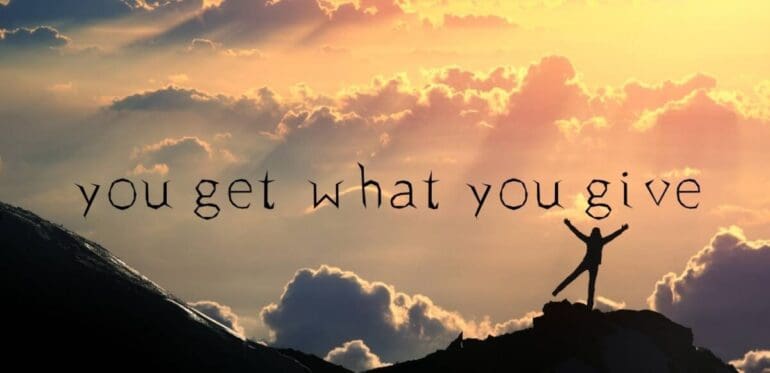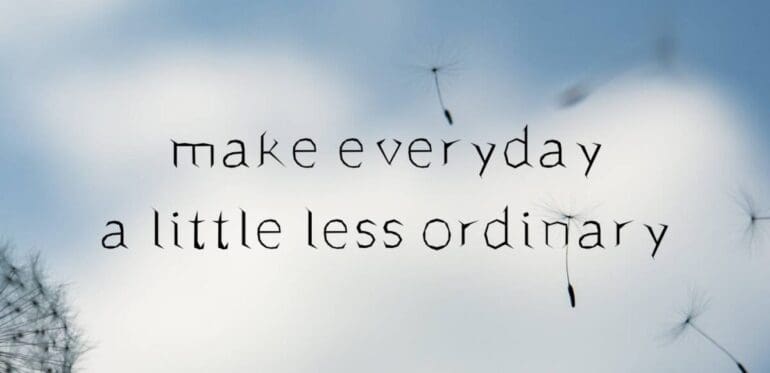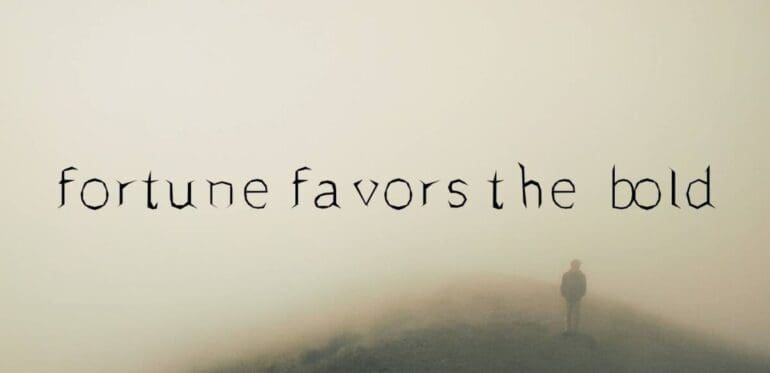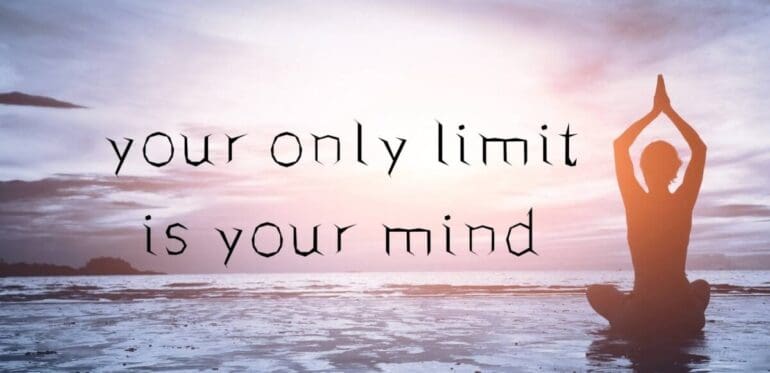
Scary Root Fonts
Scary Root Fonts. Let’s introduce a very unique and scary font that belongs to the horror typeface family. Make your spooky signs or very creepy designs with the use of Scary Roots Font. The designer of this unique typeface is Boldfonts. They are very talented and well-known for so many other typefaces in the fonts marketplace. This typeface has many styles that hold various dramatic touches, which would be perfect in plenty of design fields.